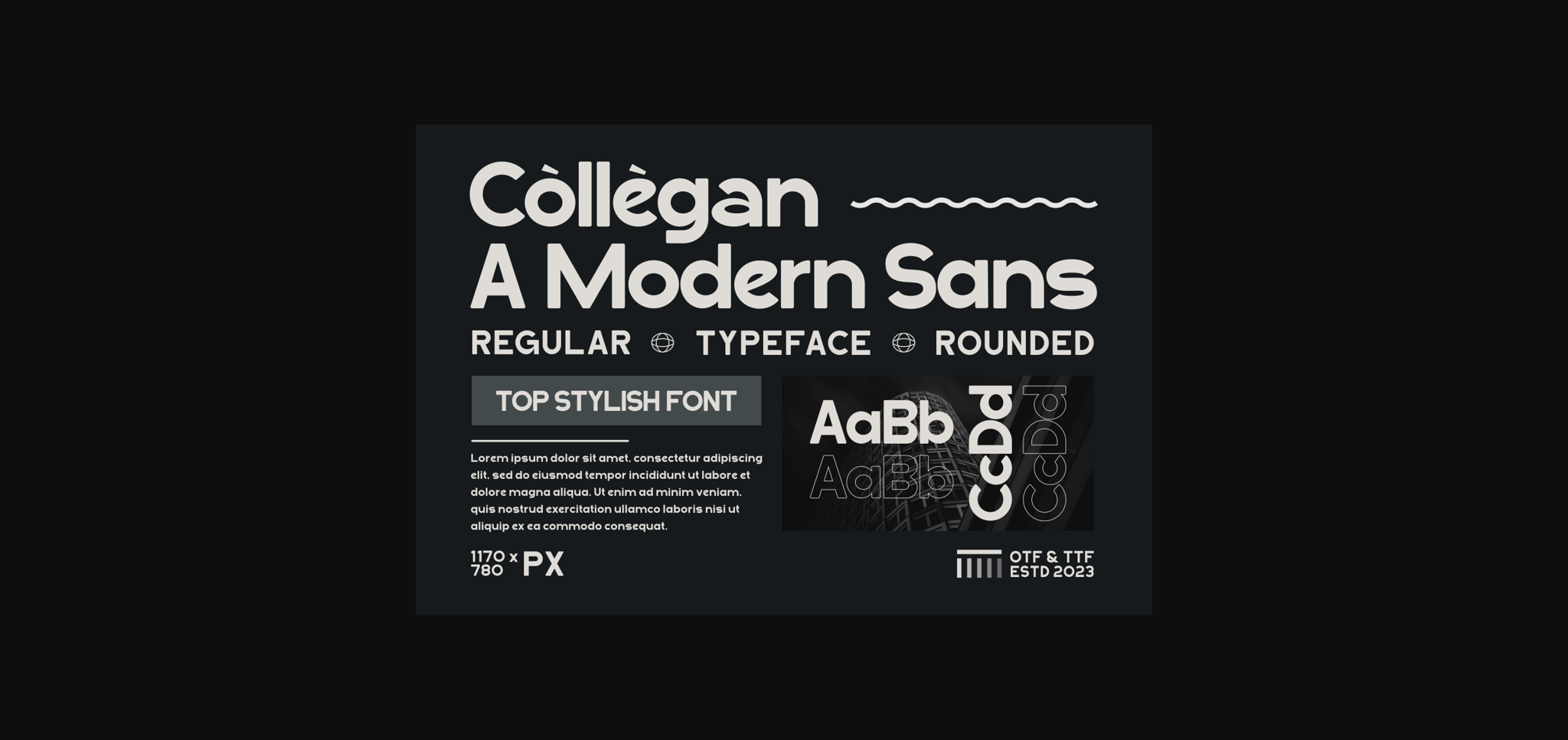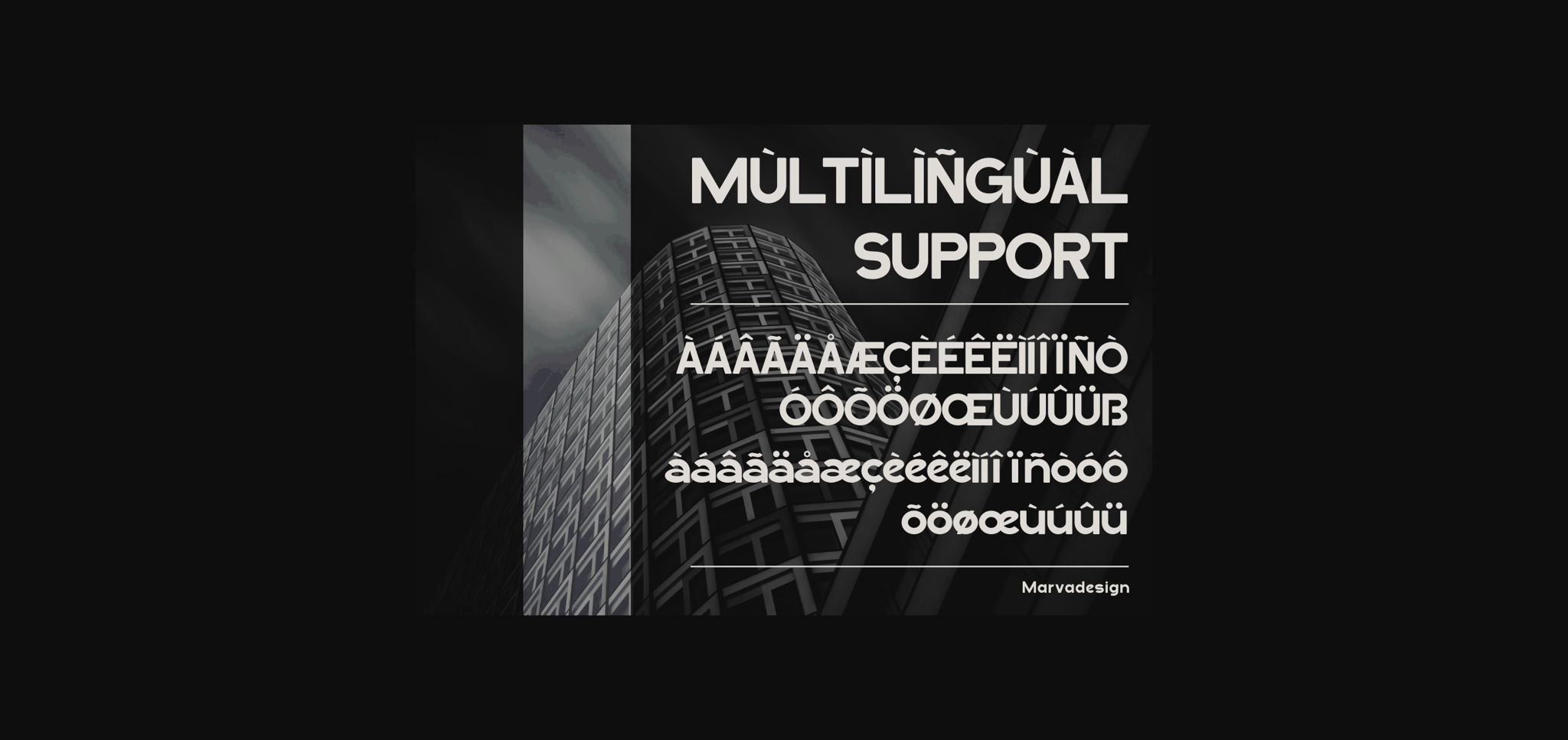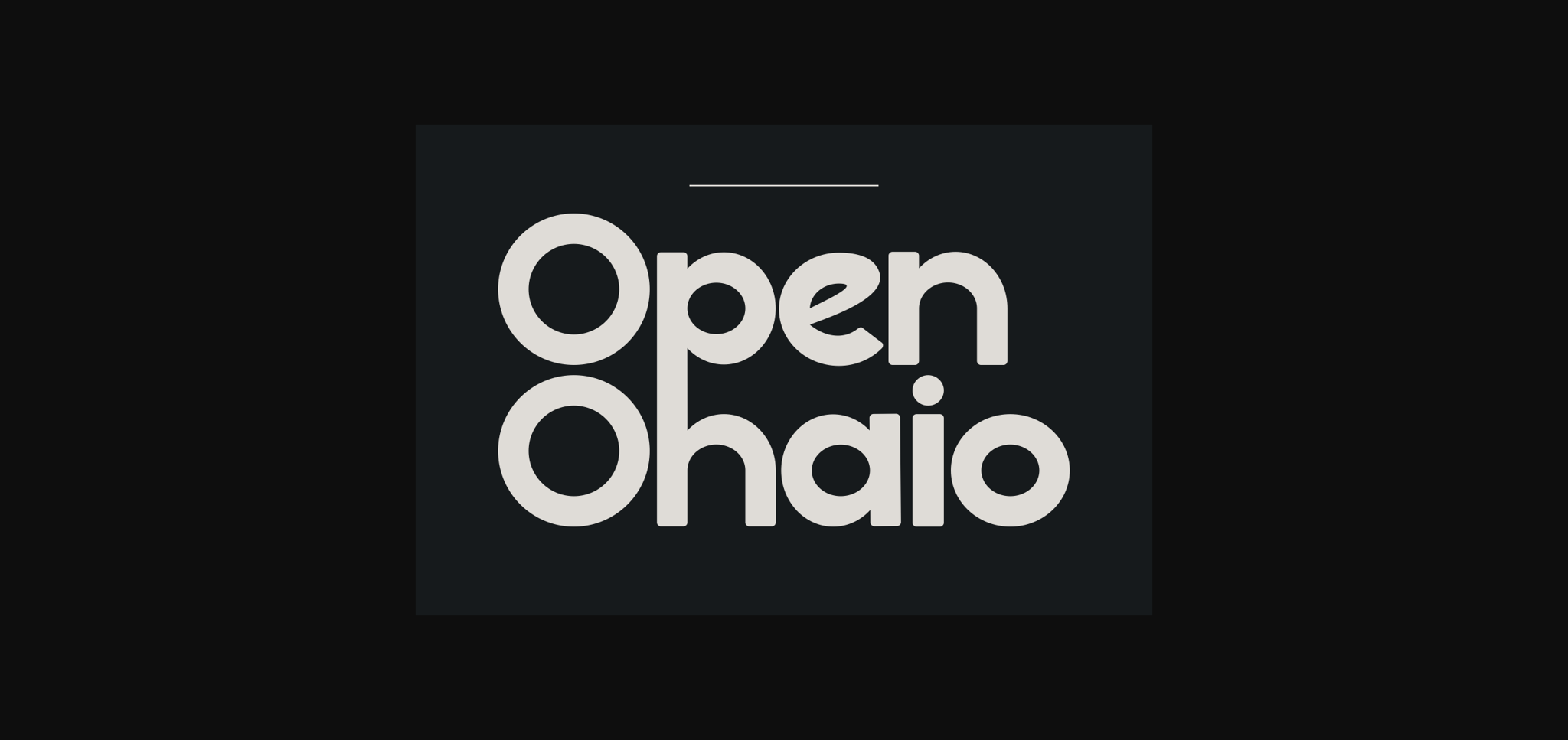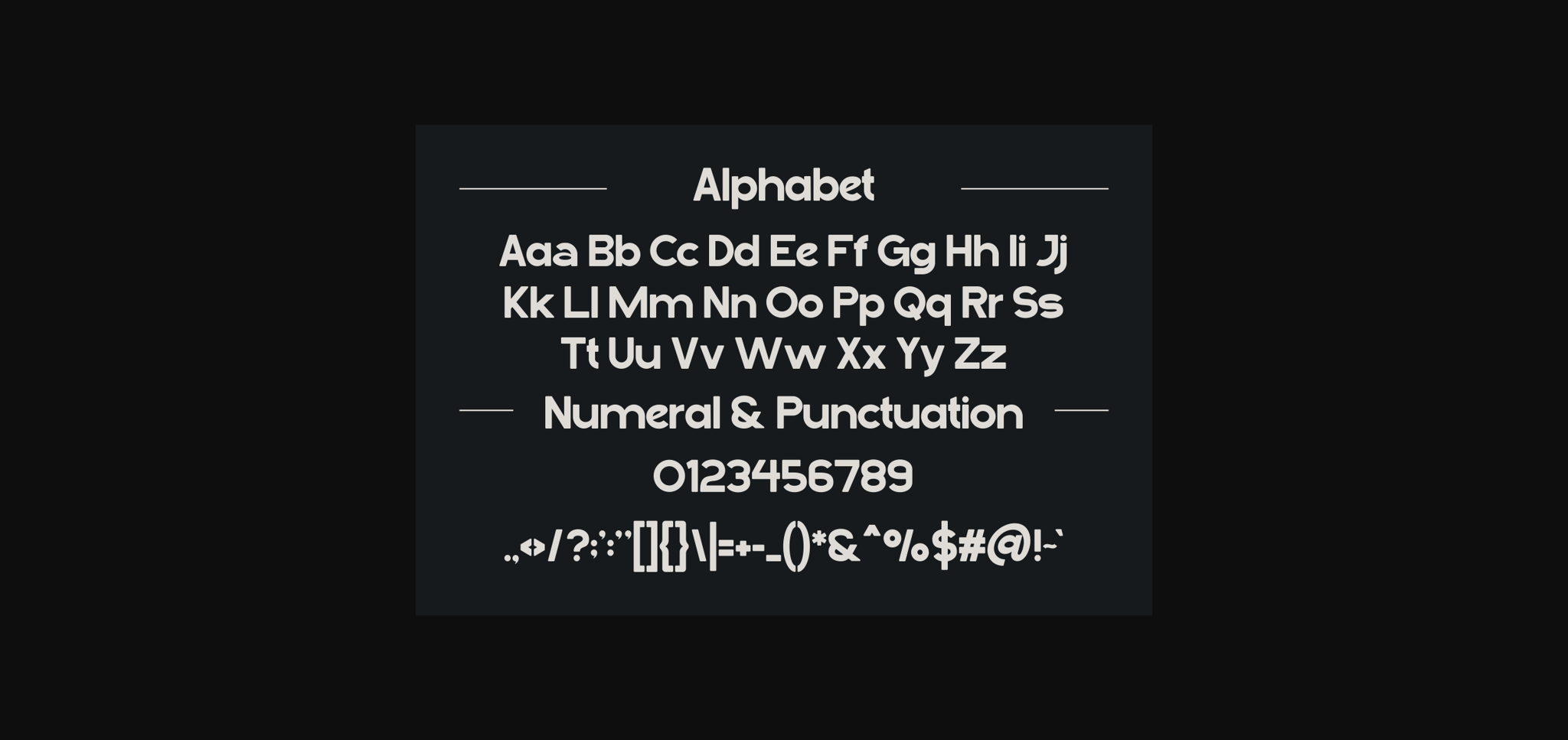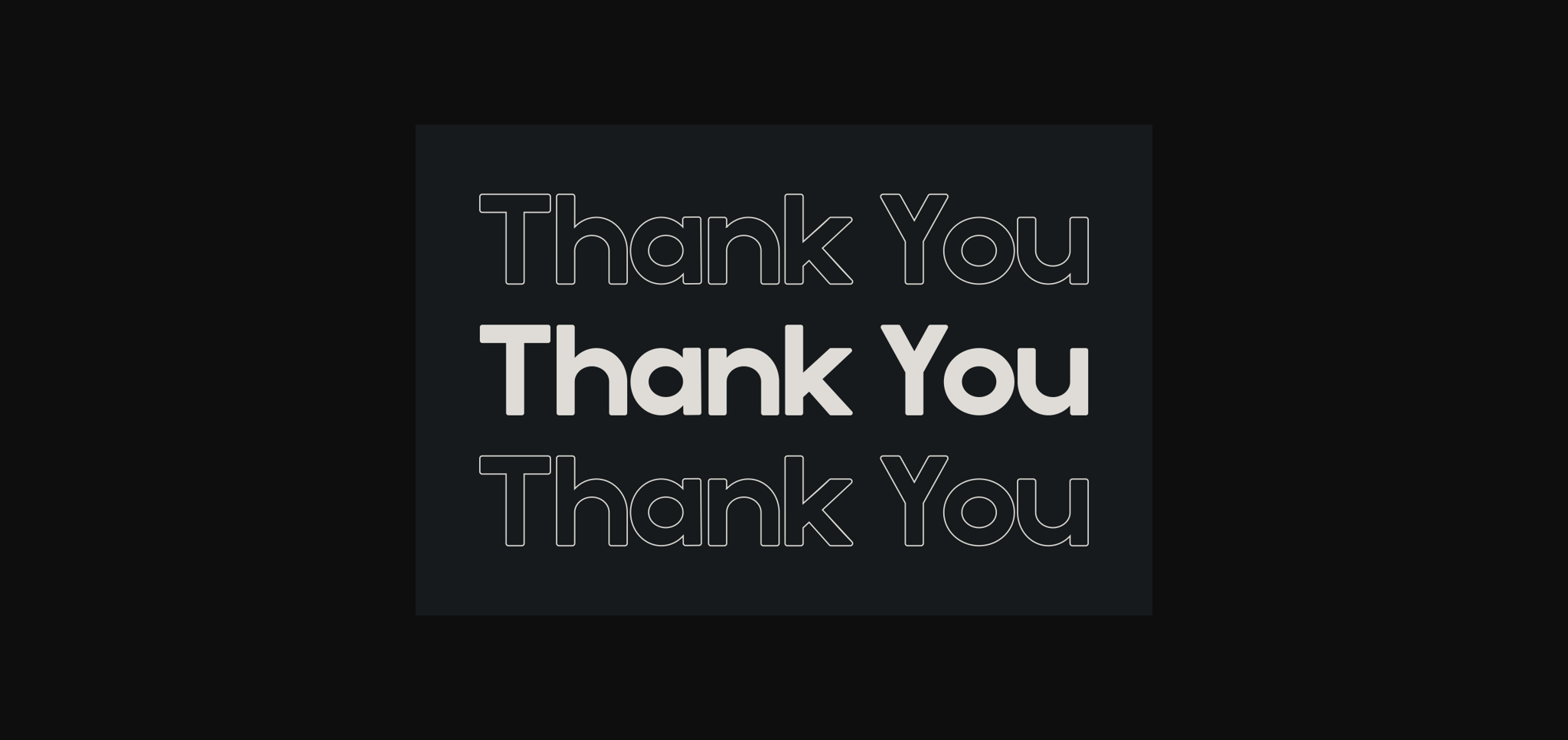
About Collegan Font
Collegan is a sleek and modern sans serif font that brings a contemporary edge to your designs. With clean lines and a stylish vibe, Collegan adds a touch of sophistication to any project. Whether you’re creating a polished logo, sleek headlines, or modern graphics, this font is versatile and easy on the eyes. Elevate your design with Collegan’s minimalist charm for a fresh and up-to-date look.